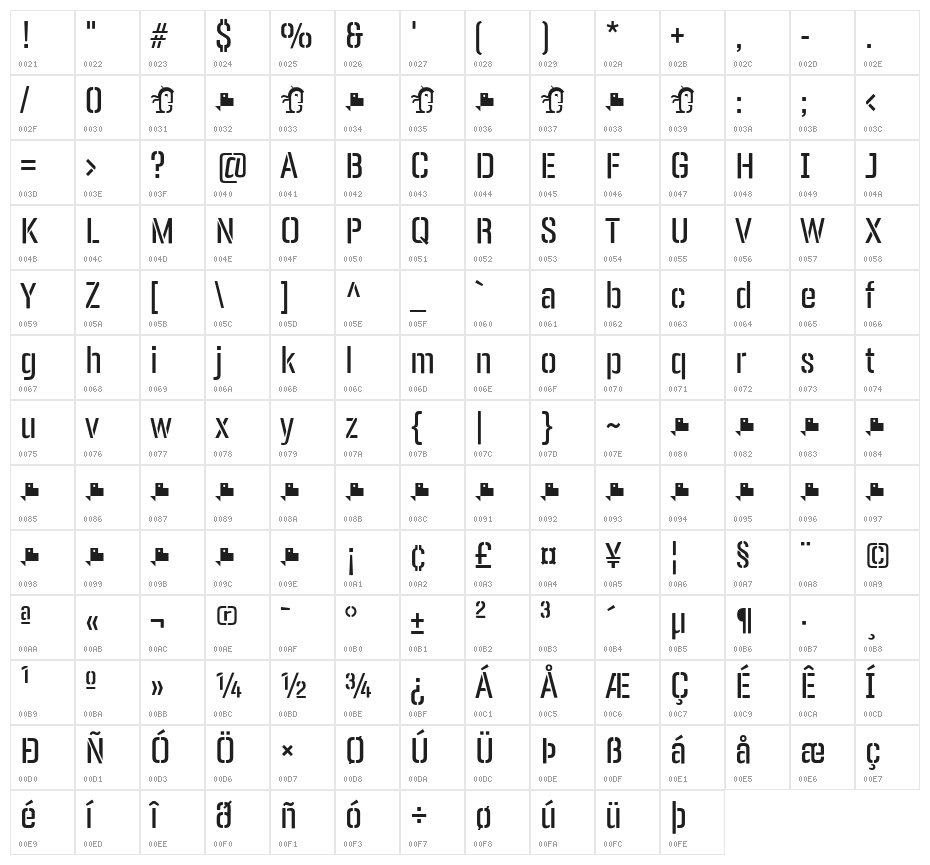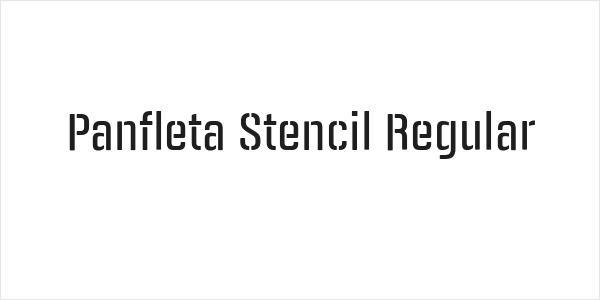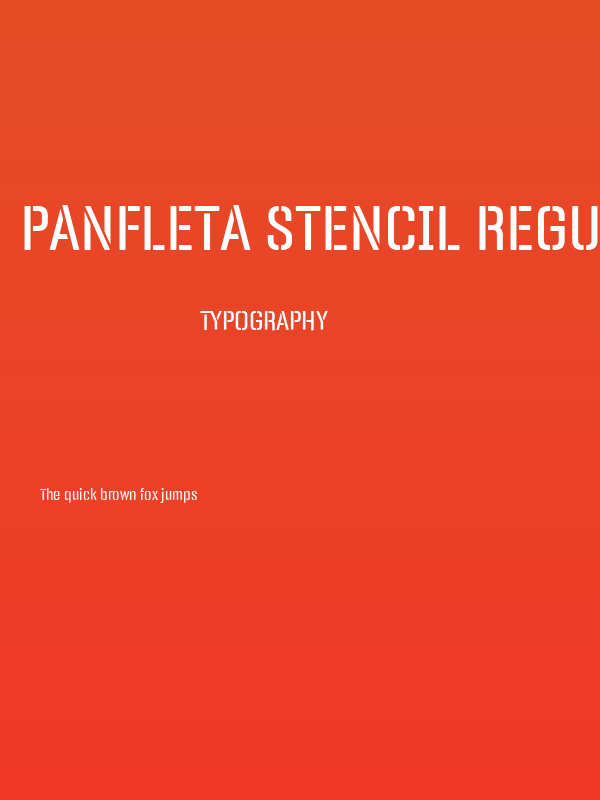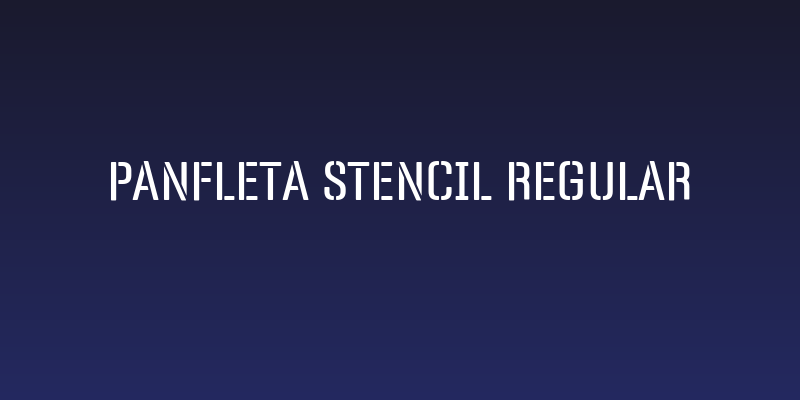
Panfleta Stencil Regular Font
Panfleta Stencil Regular Description
This font features a bold, stencil-like design with clear, geometric shapes and a modern aesthetic. The uppercase and lowercase letters maintain a consistent width, creating a uniform appearance. The characters are distinct and easily readable, with sharp angles and clean lines. The stencil gaps add a unique touch, making it suitable for creative and industrial-themed projects. The numbers and special characters follow the same design principles, ensuring consistency across all elements.
| Proposed Projects | Ideal for posters, branding, packaging, and industrial-themed designs. |